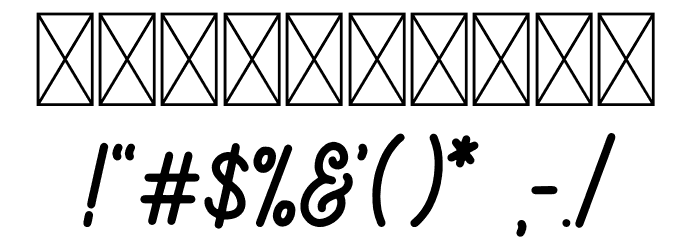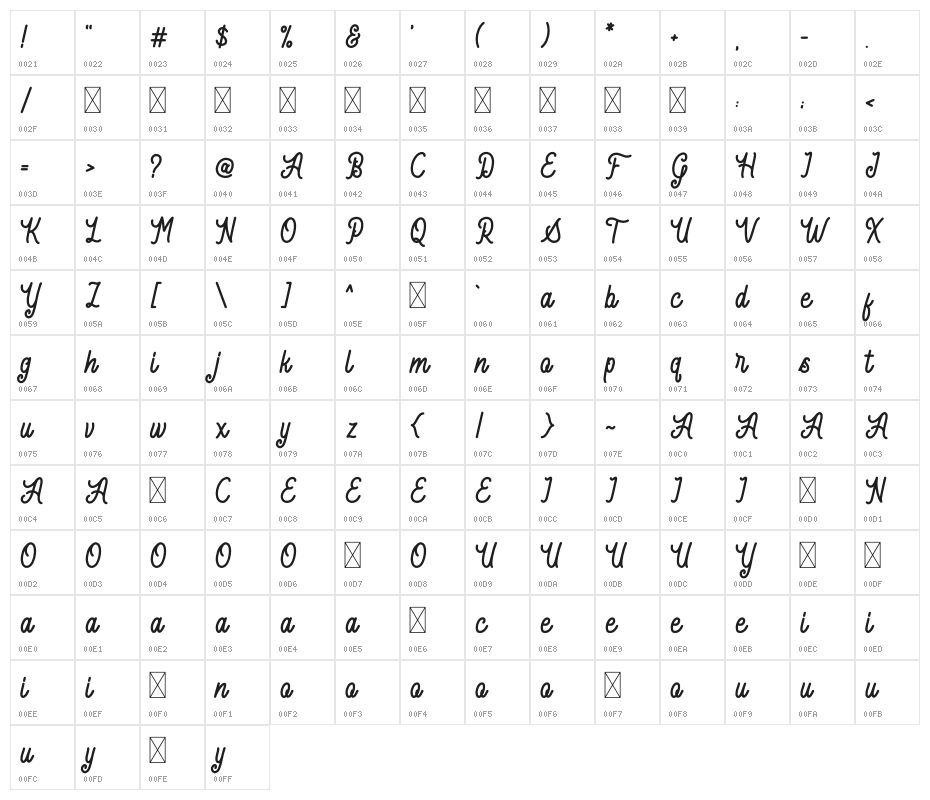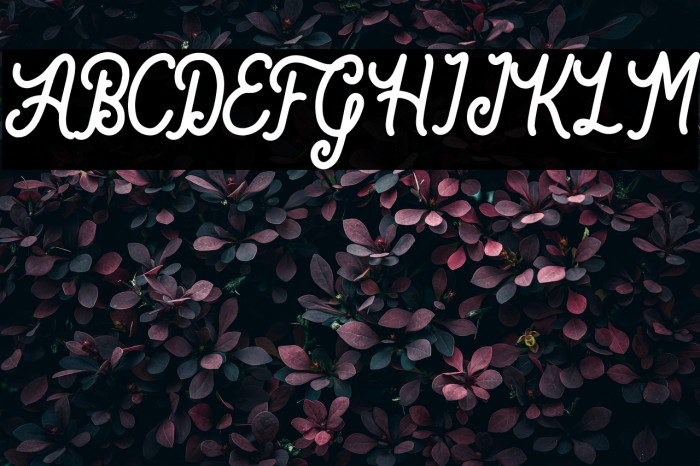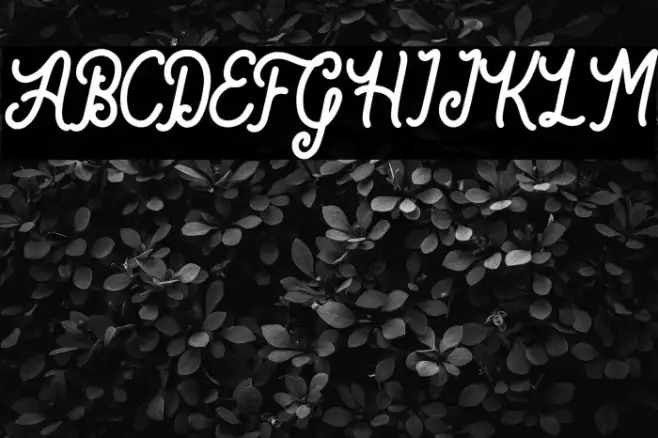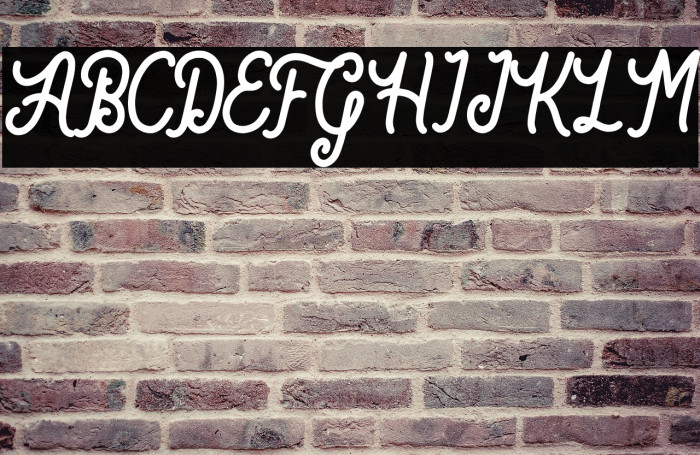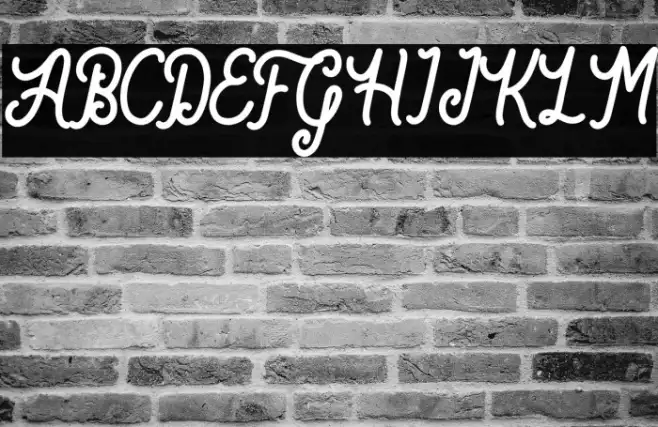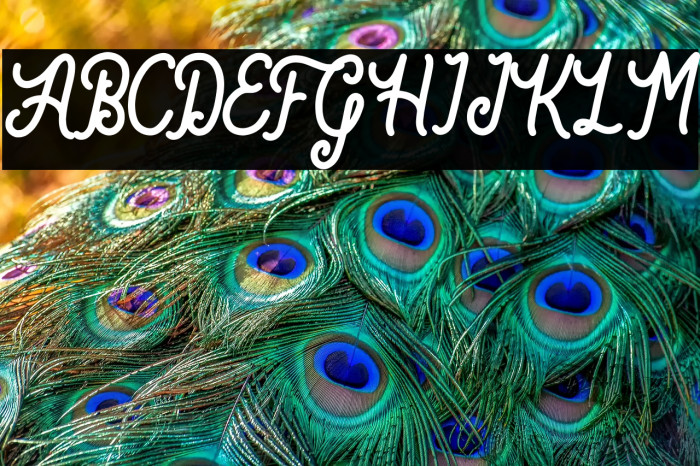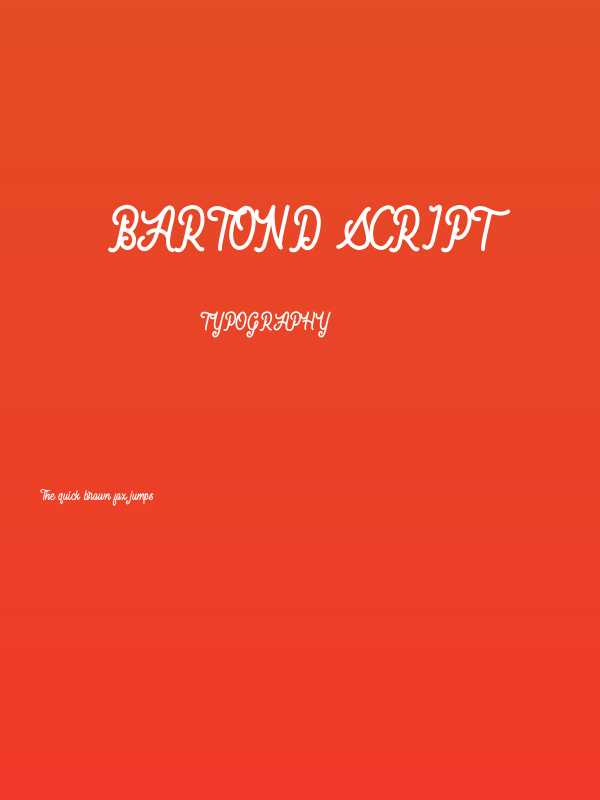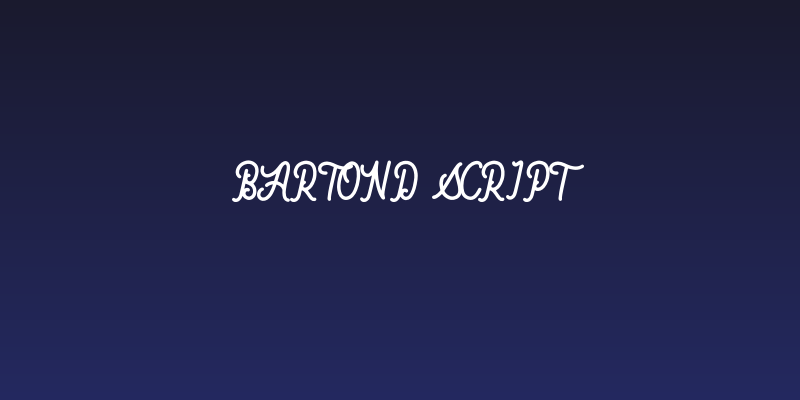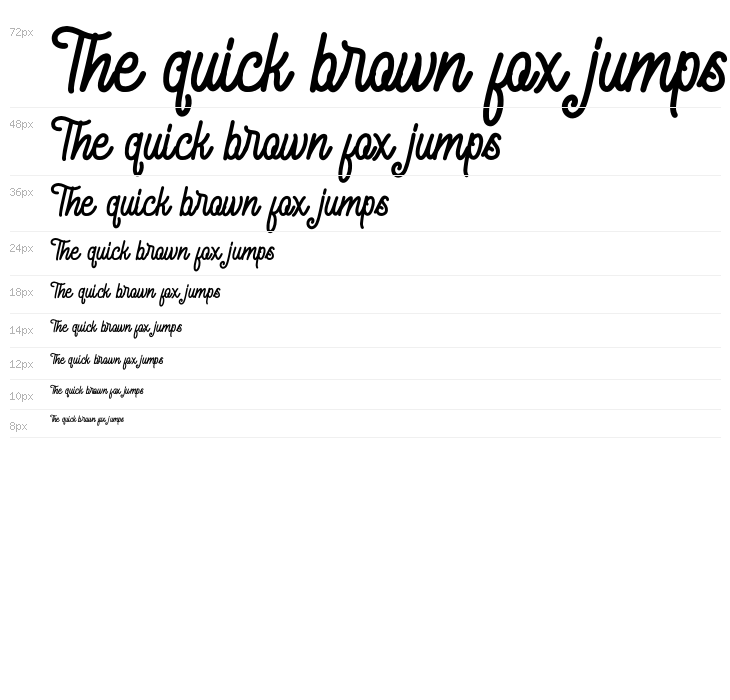
Bartond Script Font
Bartond Script Description
This font features a flowing, cursive style with elegant loops and swirls, giving it a handwritten appearance. The uppercase letters are bold and prominent, with a slight slant that adds a dynamic feel. The lowercase letters maintain a consistent flow, connecting smoothly to create a cohesive look. The characters are well-spaced, ensuring readability while maintaining the script's decorative nature. The special characters complement the alphabet with similar stylistic elements, making it suitable for creative projects.